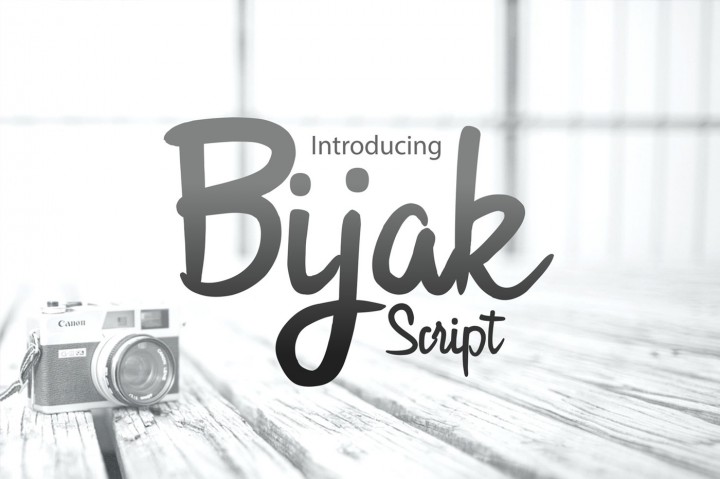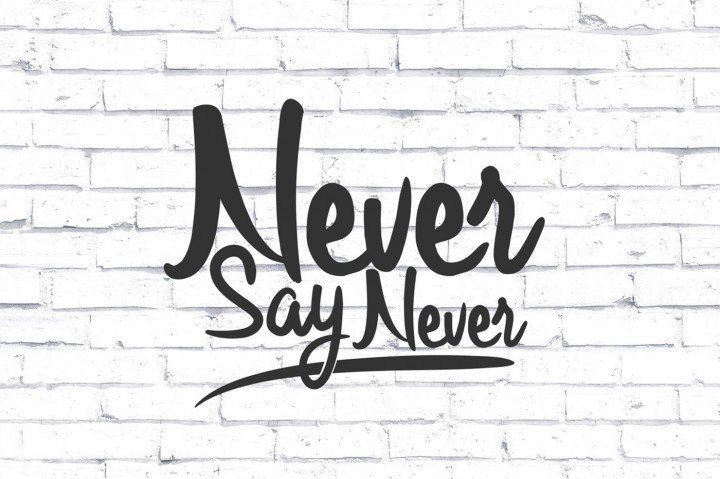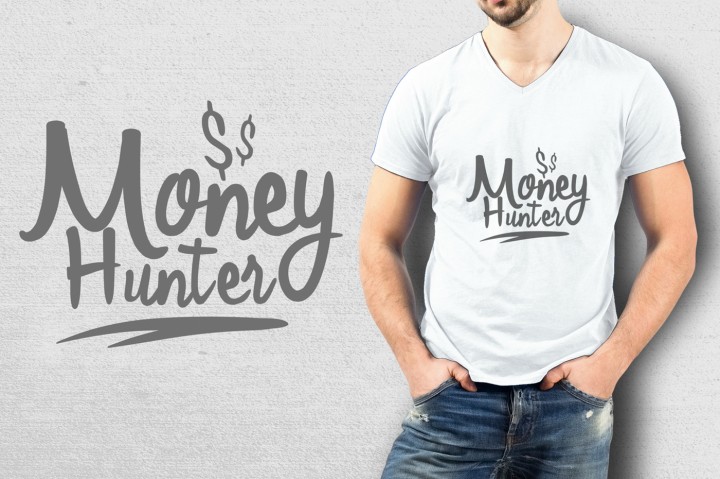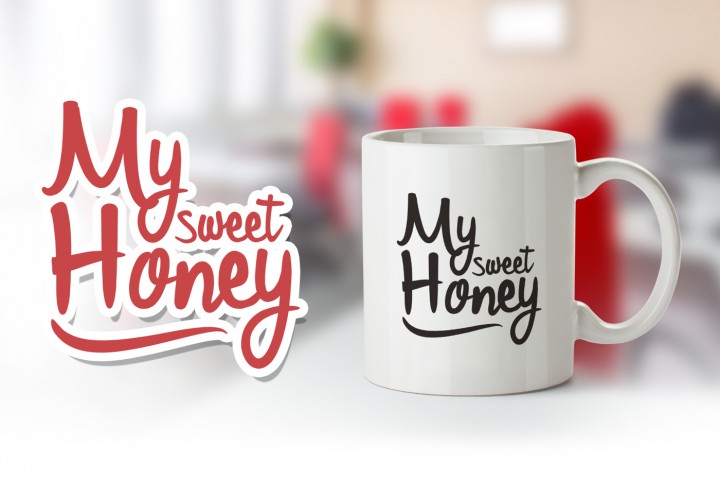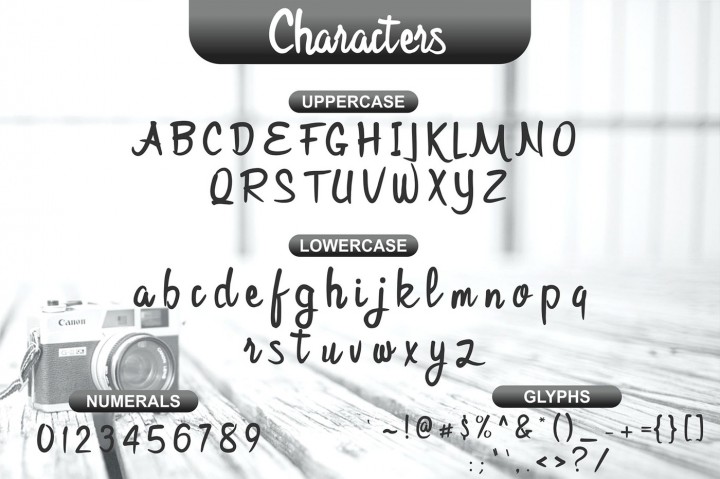
Bijak Font
About Bijak Font
Bijak is a handwritten font of Khurasan.
It is perfect for invitations, wedding invites, cards and other items that require a personal touch.